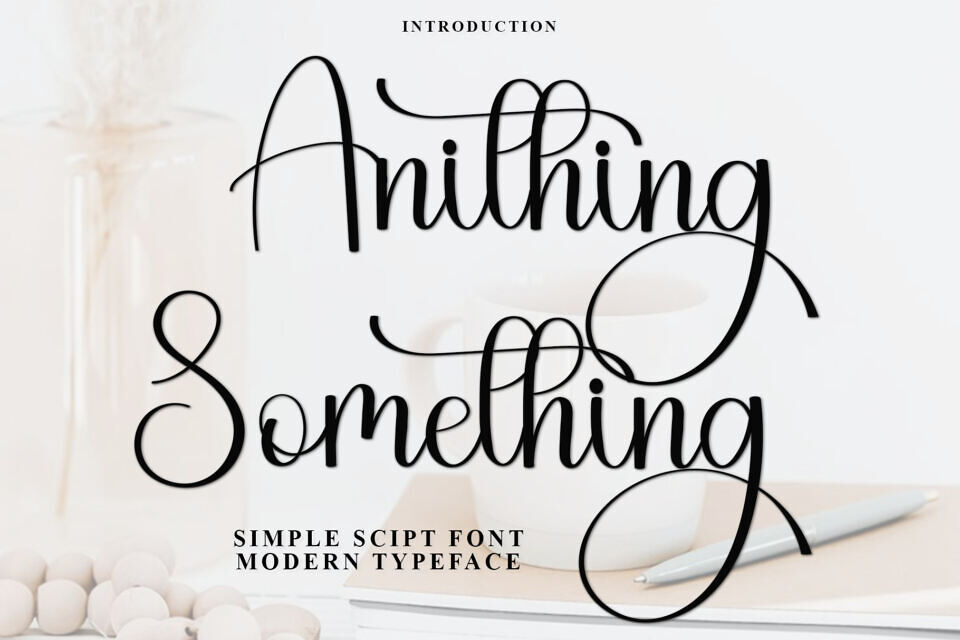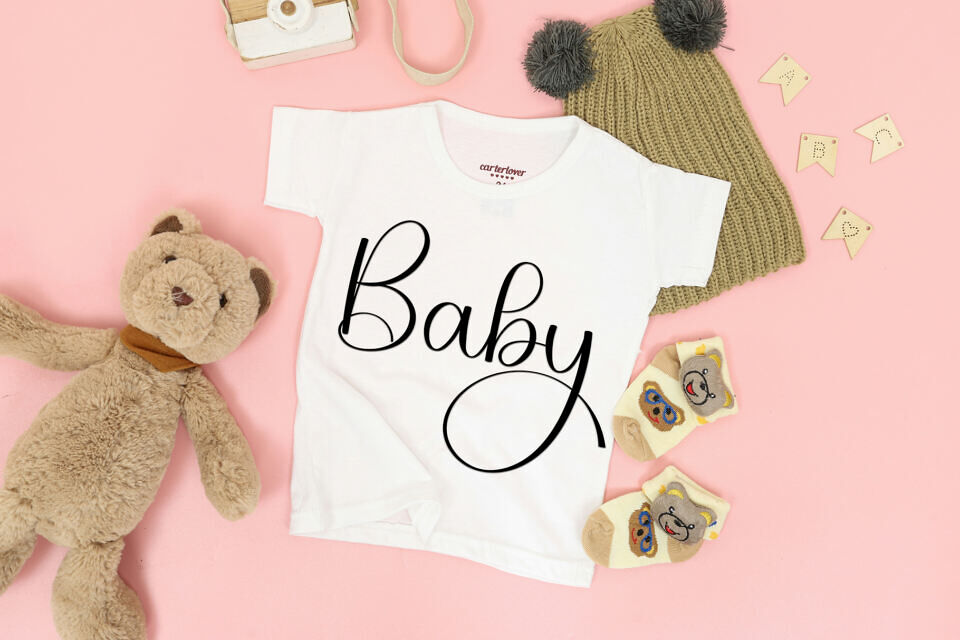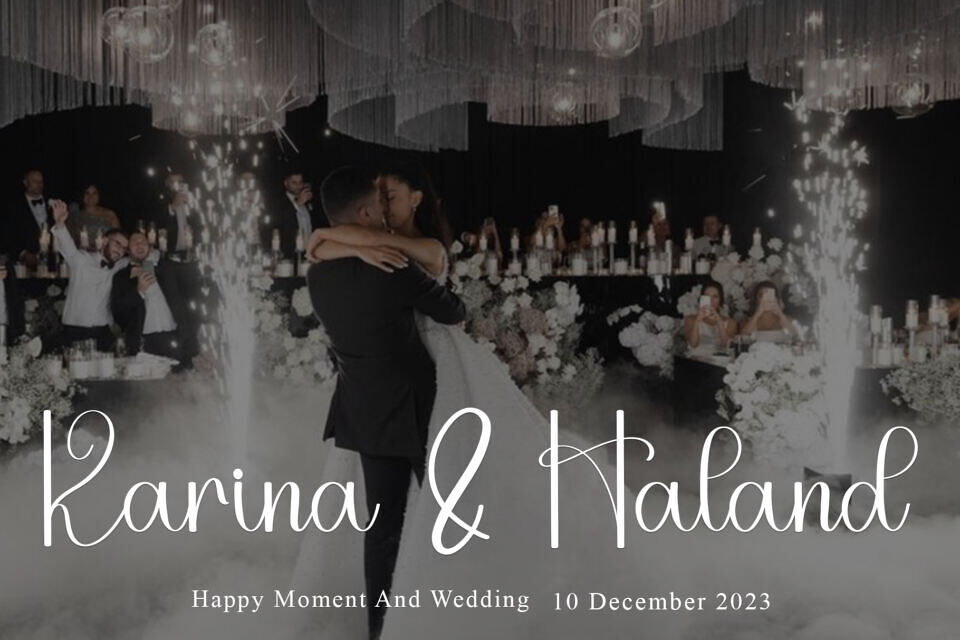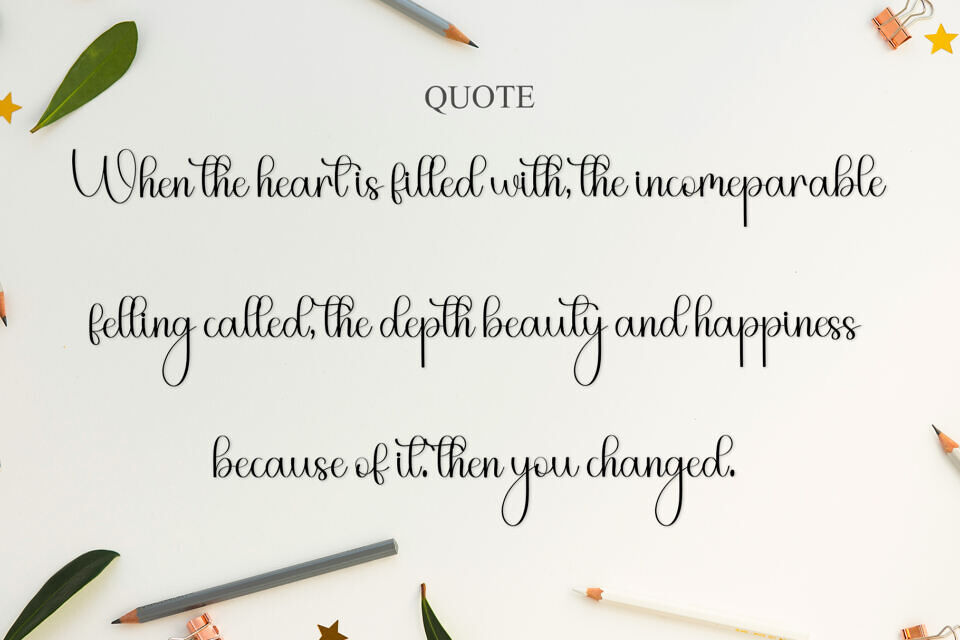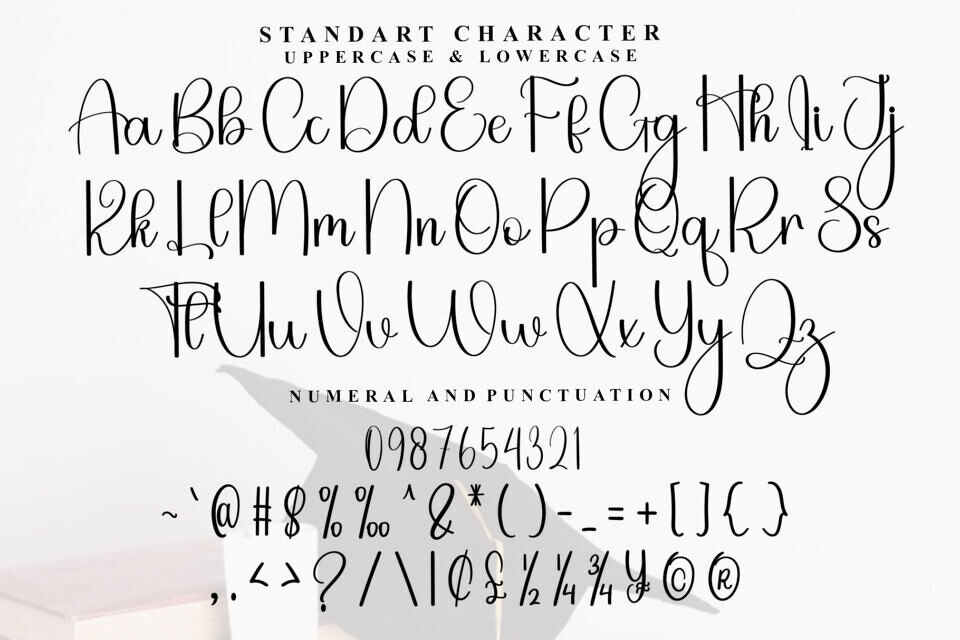
Anithing Something is a charming script font designed by FreshTypeINK. Featuring 115 glyphs covering basic Latin and numerals, it delivers a flowing, handmade aesthetic perfect for personal‑use projects.
Its smooth curves and casual, handwritten look make it ideal for greeting cards, social‑media visuals, wedding invites, logos, and other creative designs.